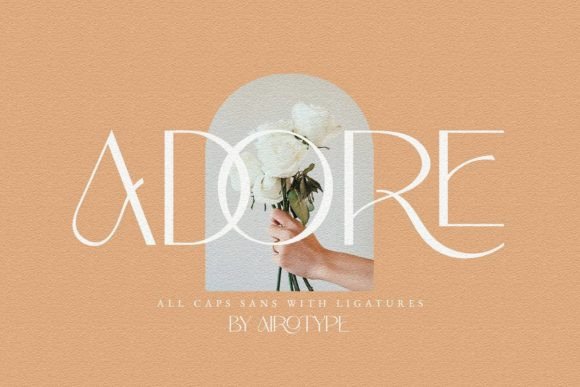
The Adore Font: A Modern Sans Serif Beauty
I’ll never forget the time I was working on a wedding invitation project, and my client asked me to create a custom logo that exuded elegance and sophistication. I spent hours scouring font libraries, but nothing seemed quite right. That was until I stumbled upon the Adore font. This stunning, modern sans serif font has been a game-changer for my design projects, and I’m excited to share its beauty with you.
• ✨ The Adore font is a thin, all-caps beauty that’s perfect for creating elegant logos, wedding invitations, and greeting cards.
• ✅ Its modern sans serif design makes it incredibly versatile, suitable for a wide range of creative projects.
• 💫 The font is PUA encoded, which means you can easily access all the glyphs and swashes to add an extra touch of personality to your designs.
While the Adore font is an excellent choice for many projects, there are a few things to keep in mind:
• ⚠️ As an all-caps font, it may not be the best choice for body text or longer paragraphs.
• 🤔 Some users may find the font a bit too thin for certain design applications, so it’s essential to test it in your specific project.
The Designer Inspiration Behind Adore Font
The Adore font was designed with the modern designer in mind. Its creator wanted to craft a font that was both elegant and versatile, suitable for a wide range of creative projects. The result is a stunning sans serif font that’s perfect for logos, wedding invitations, and greeting cards.
Q: What is the Adore font best suited for?
A: The Adore font is perfect for logos, wedding invitations, greeting cards, branding, fashion, and short quotes.
Q: Is the Adore font PUA encoded?
A: Yes, the Adore font is PUA encoded, which means you can easily access all the glyphs and swashes.